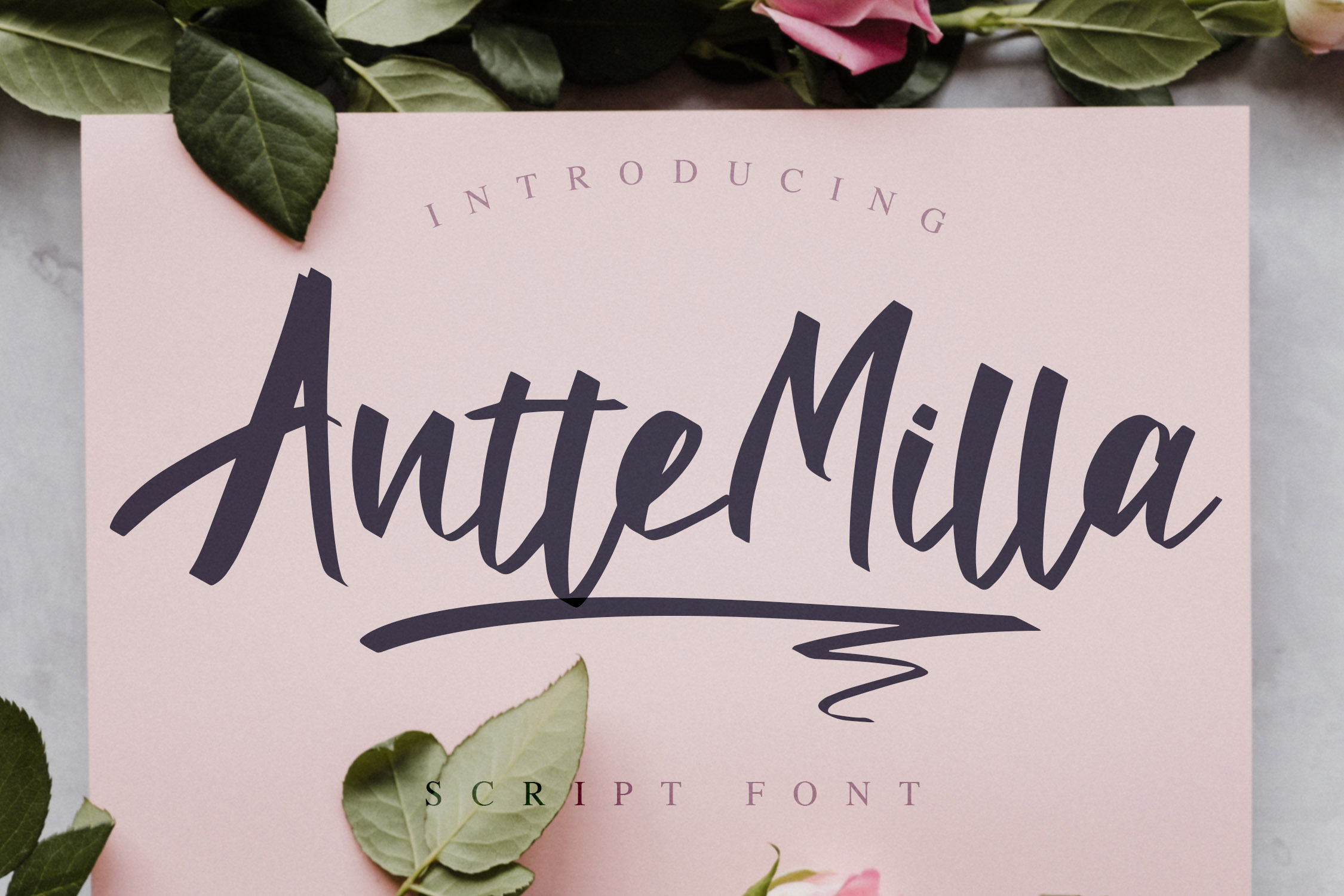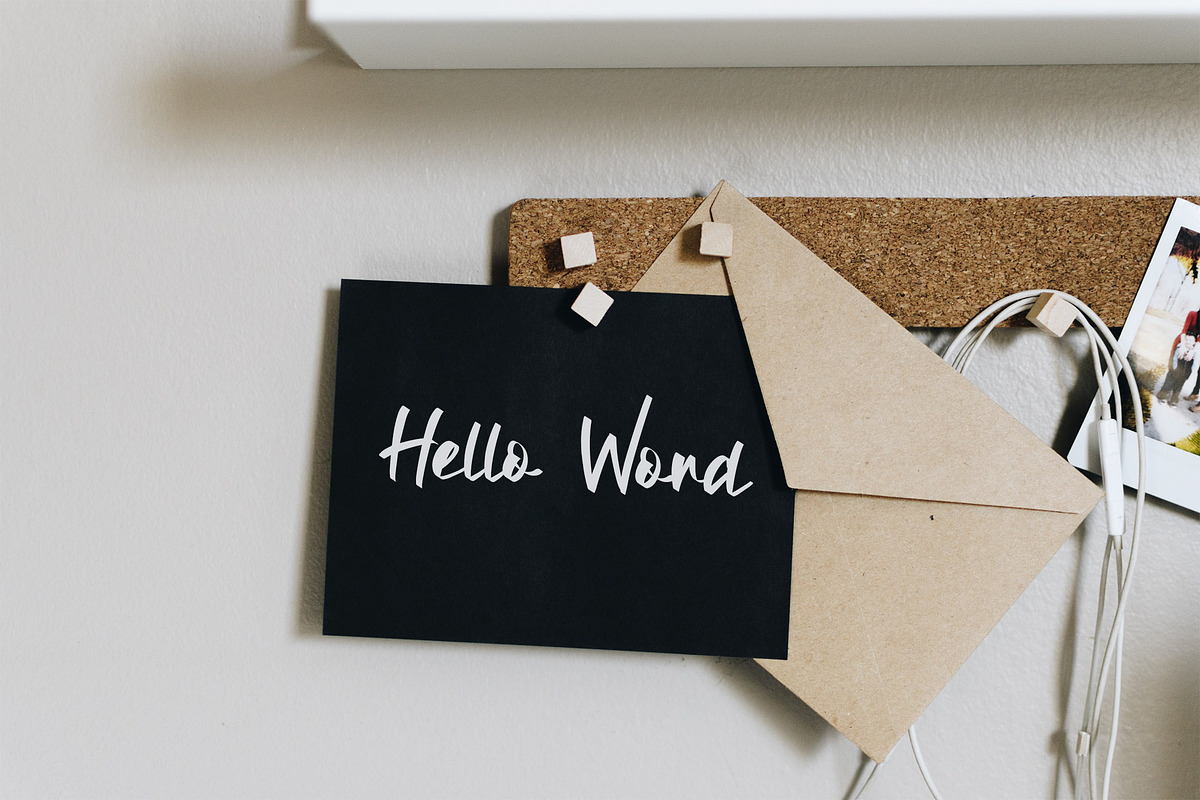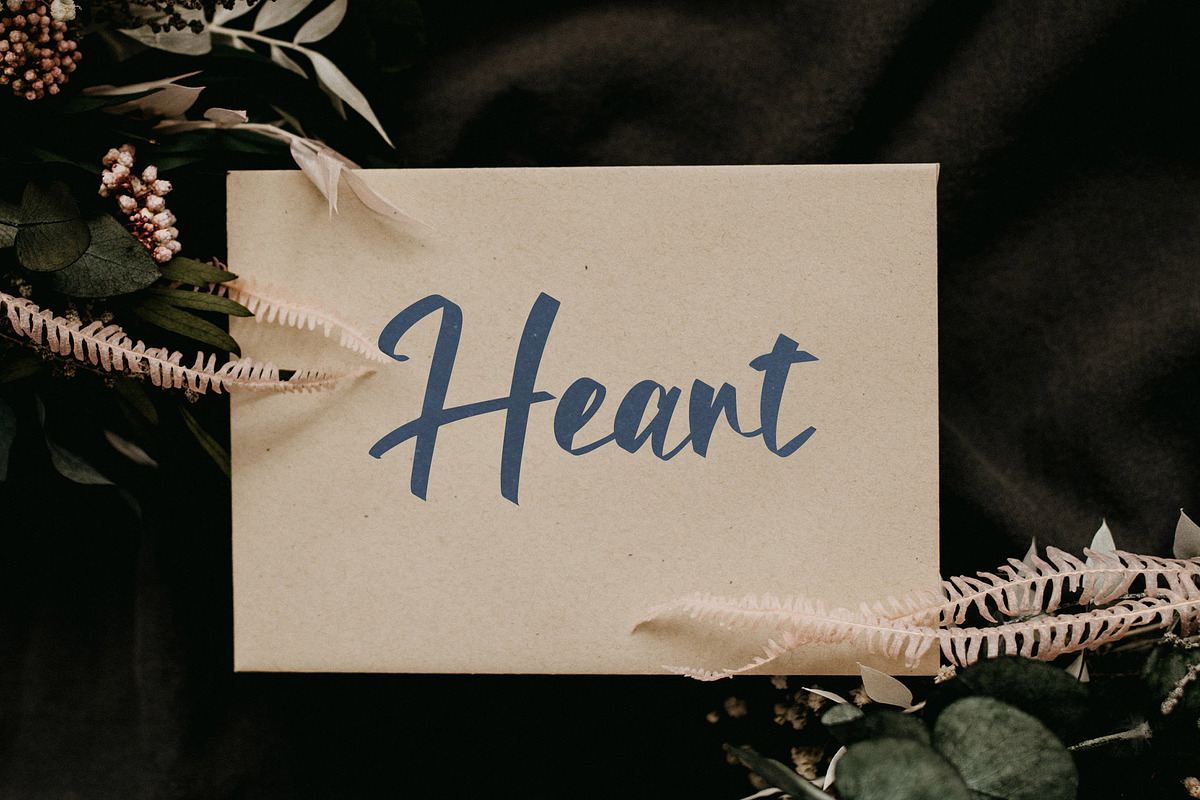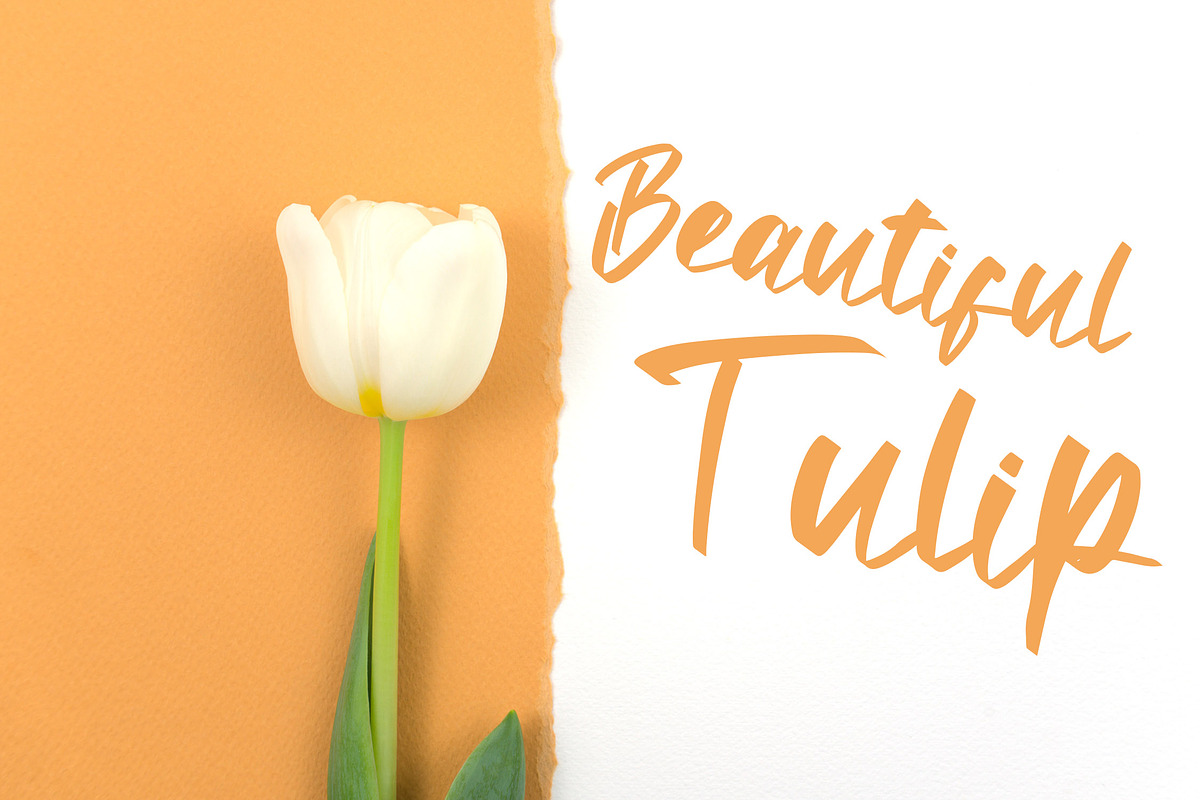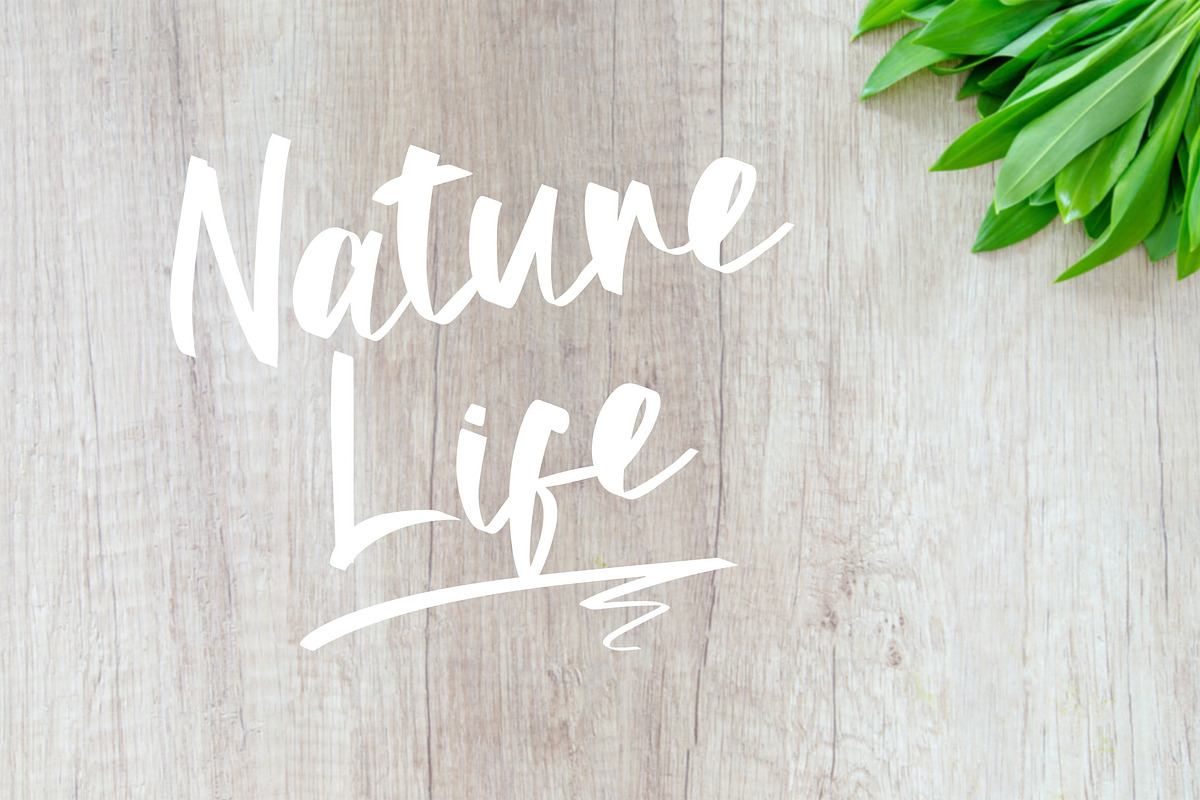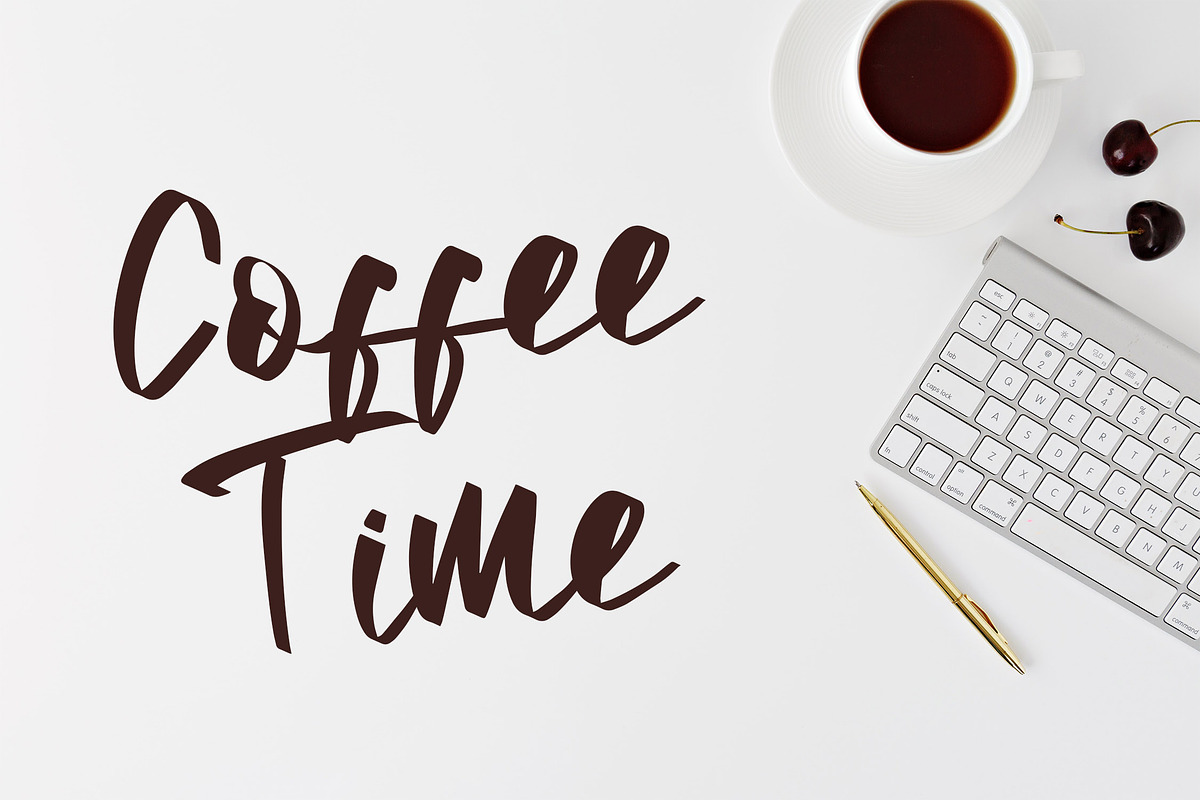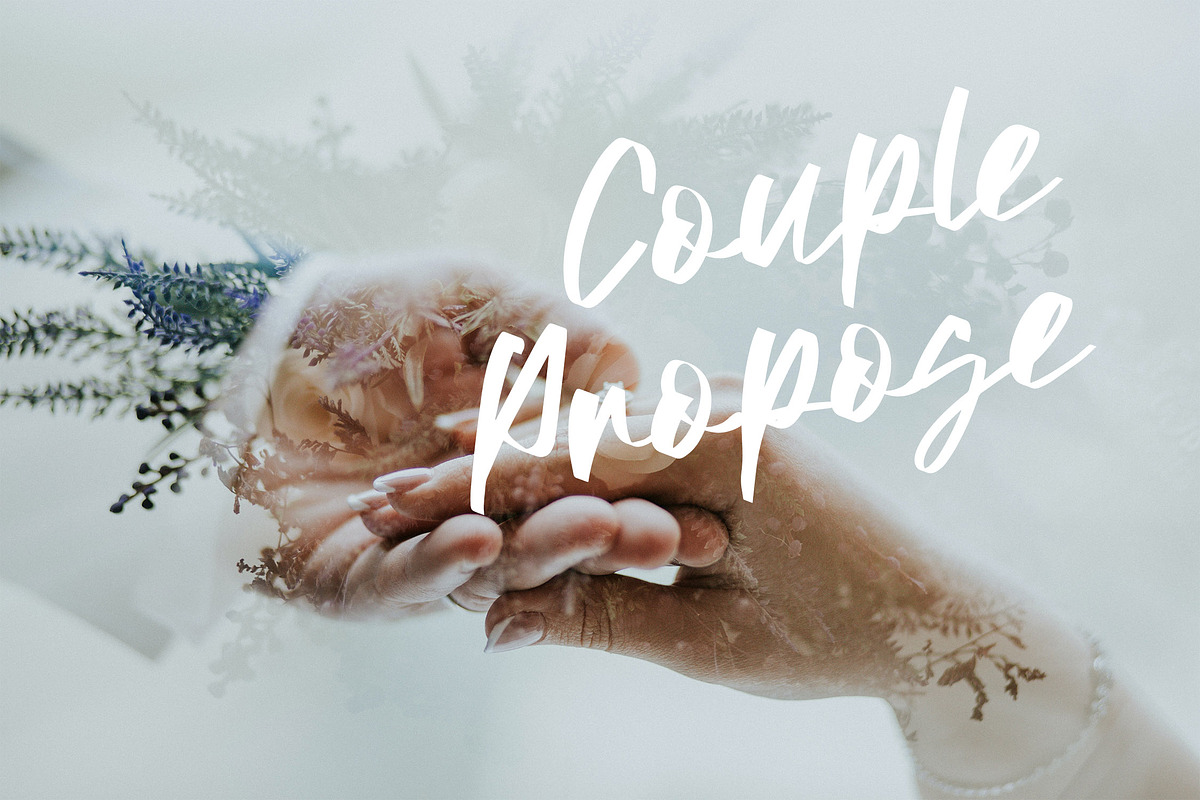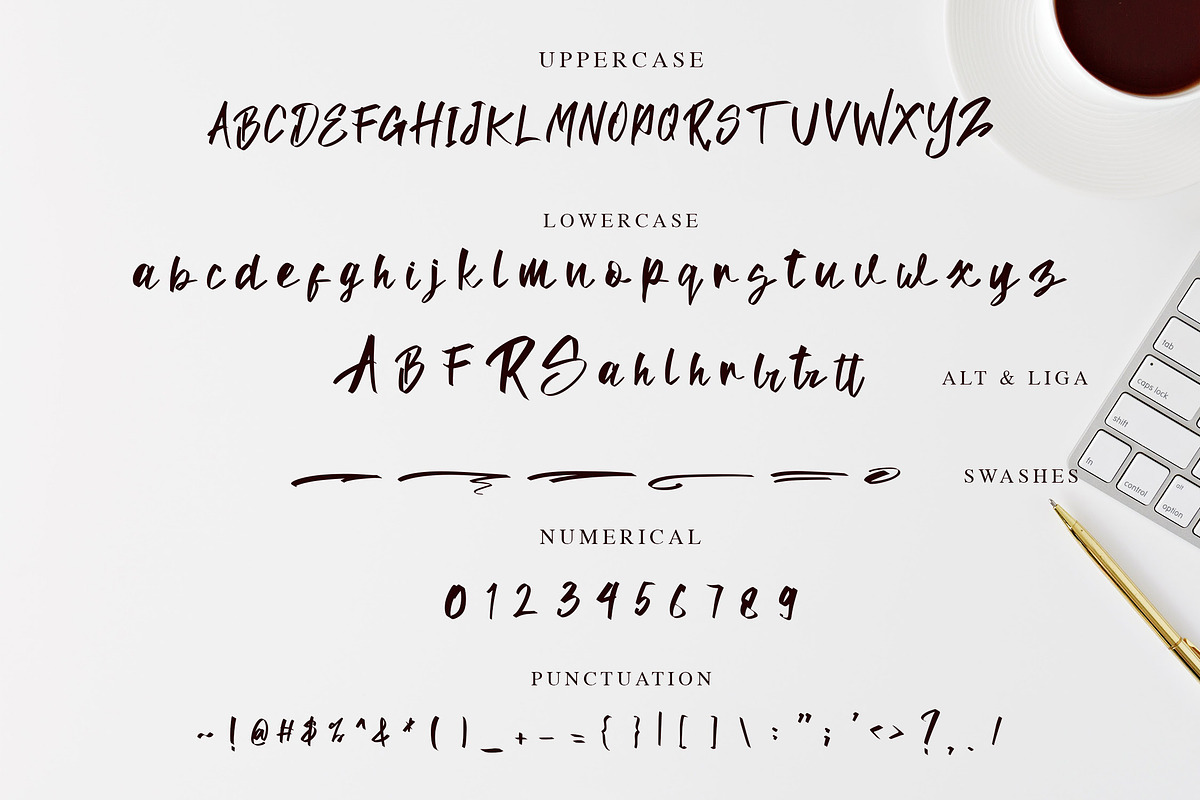
Antte Milla - Elegant Script Font
Antte Milla is a beautiful brush script font with an elegant calligraphic style. Is a font style that is made with scratches and curvature shapes font characters are very beautiful. Can be applied to support the graphic appearance of the product to be more attractive and unique. This font is suitable for making previews and covers, logo designs, shirt designs and other graphic needs.
Antte Milla font with uppercase characters A-Z, lowercase characters a-z, punctuation, swashes, stylistic alternate, and ligature characters that enhance this font shape.
- Stylistic Alternate